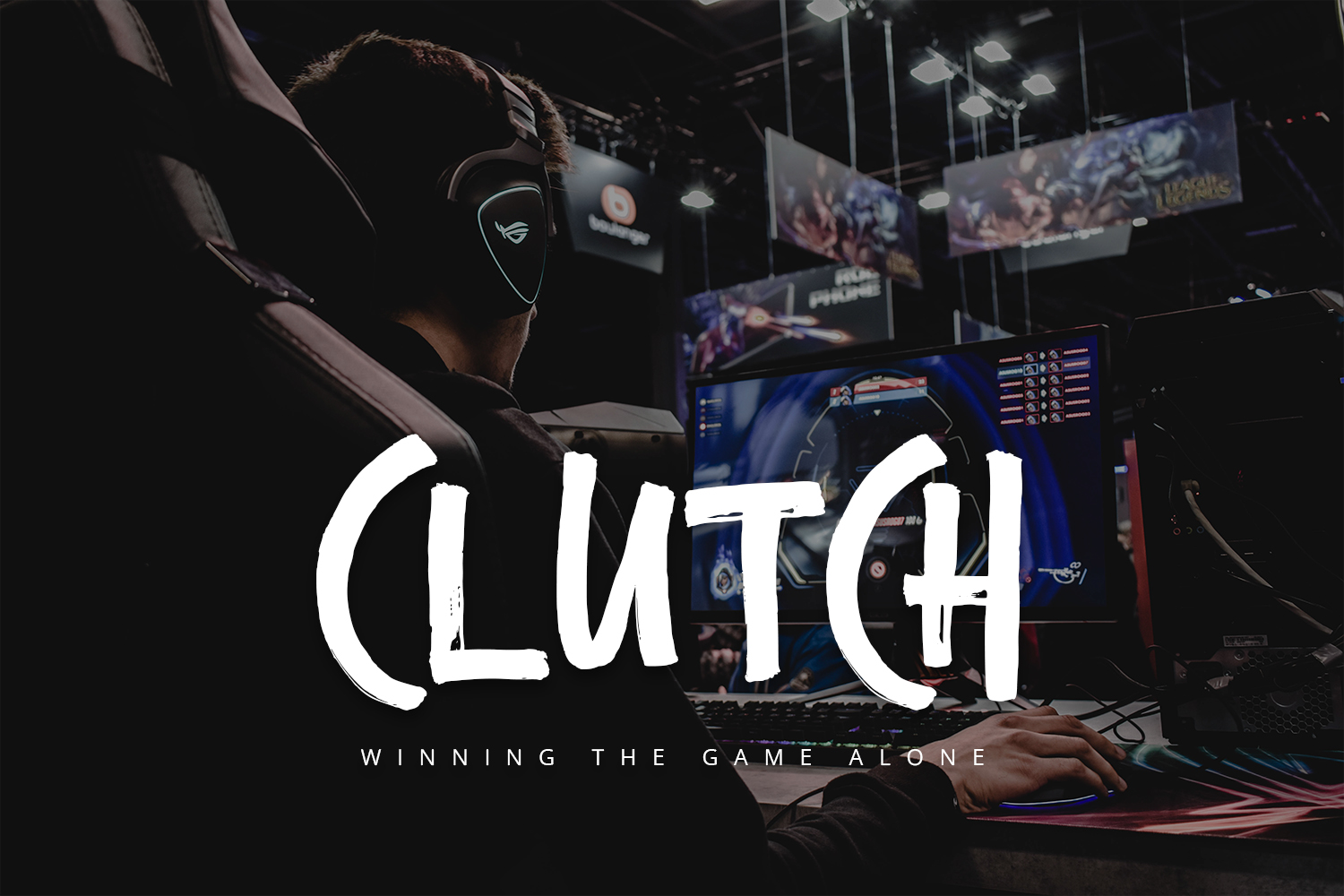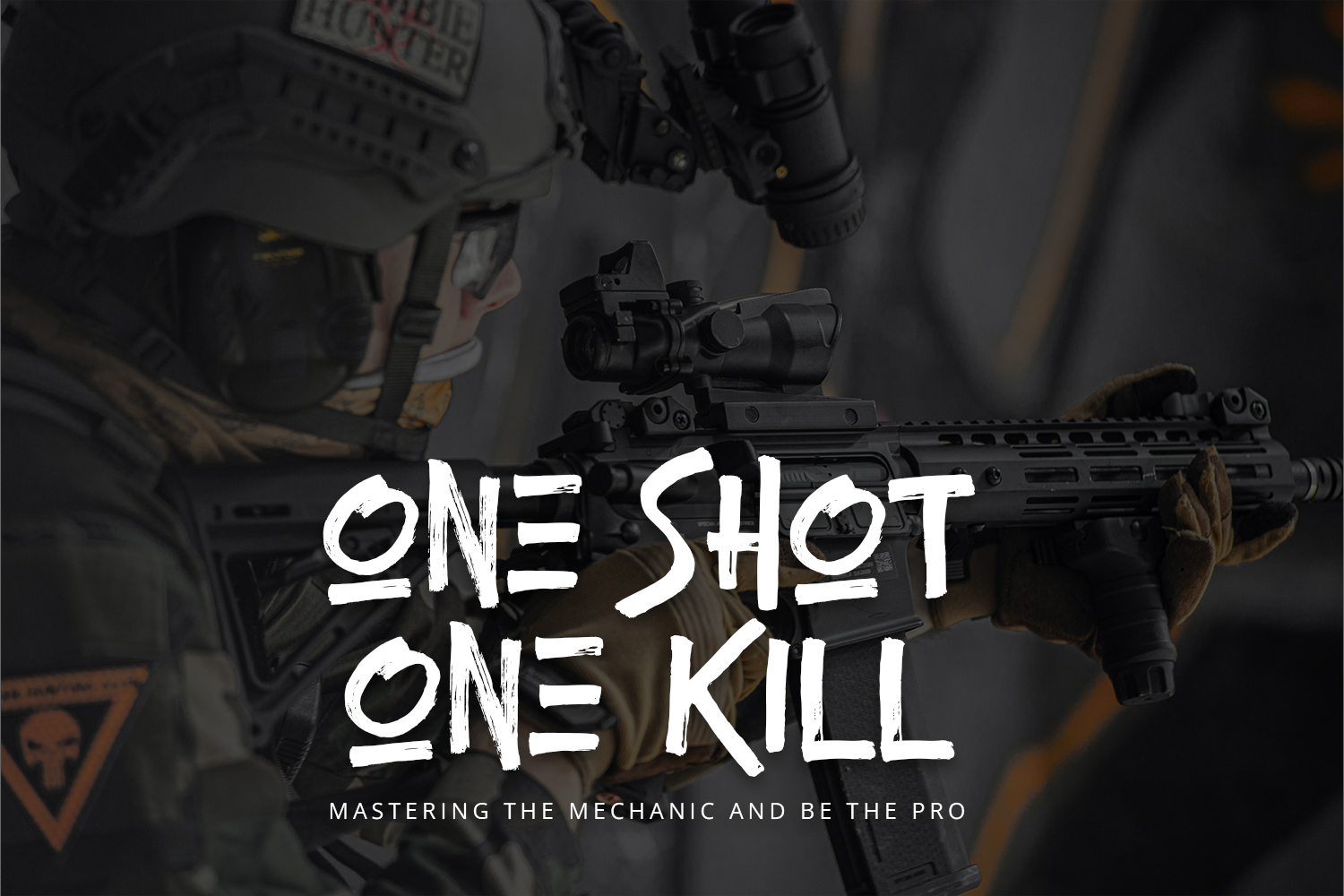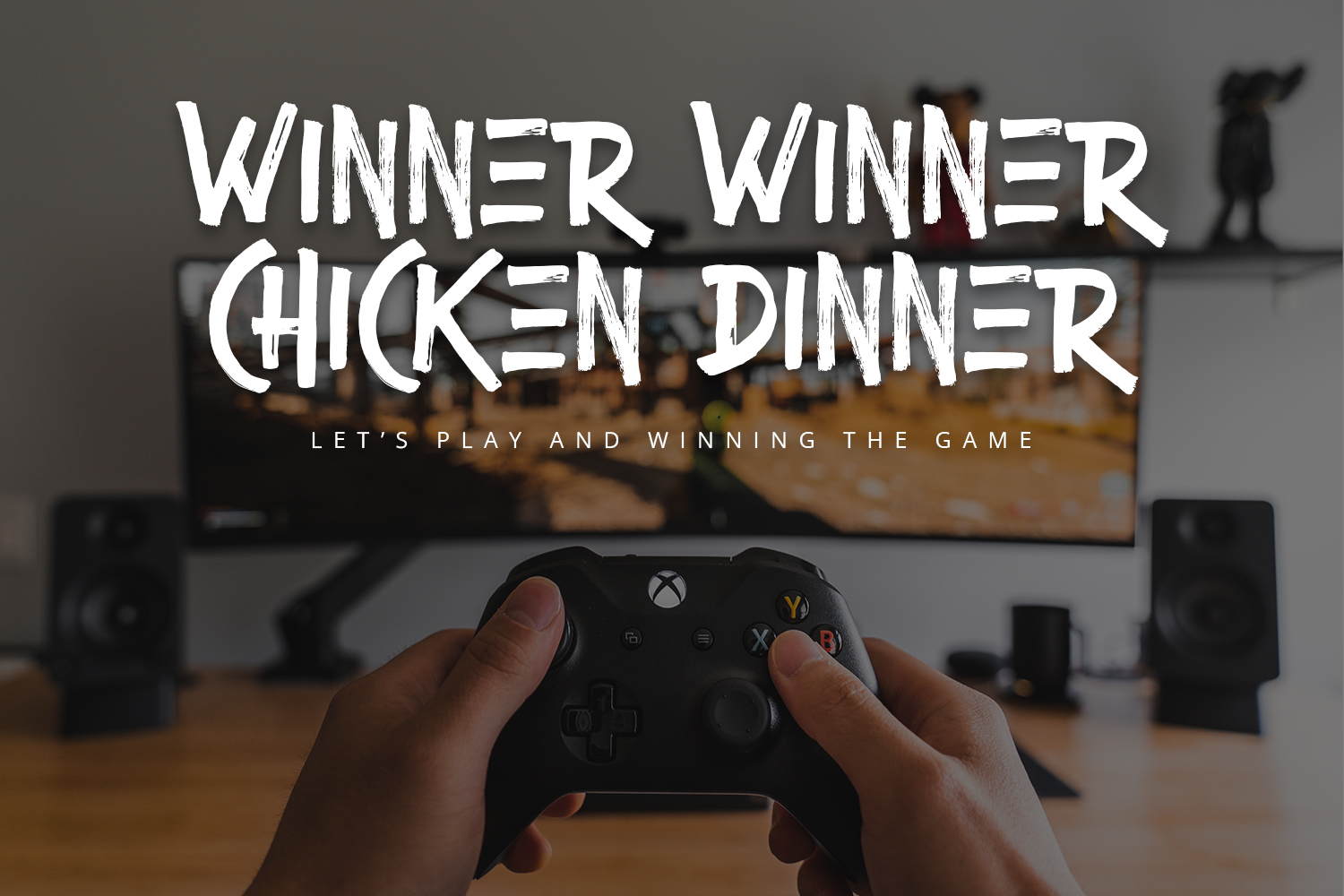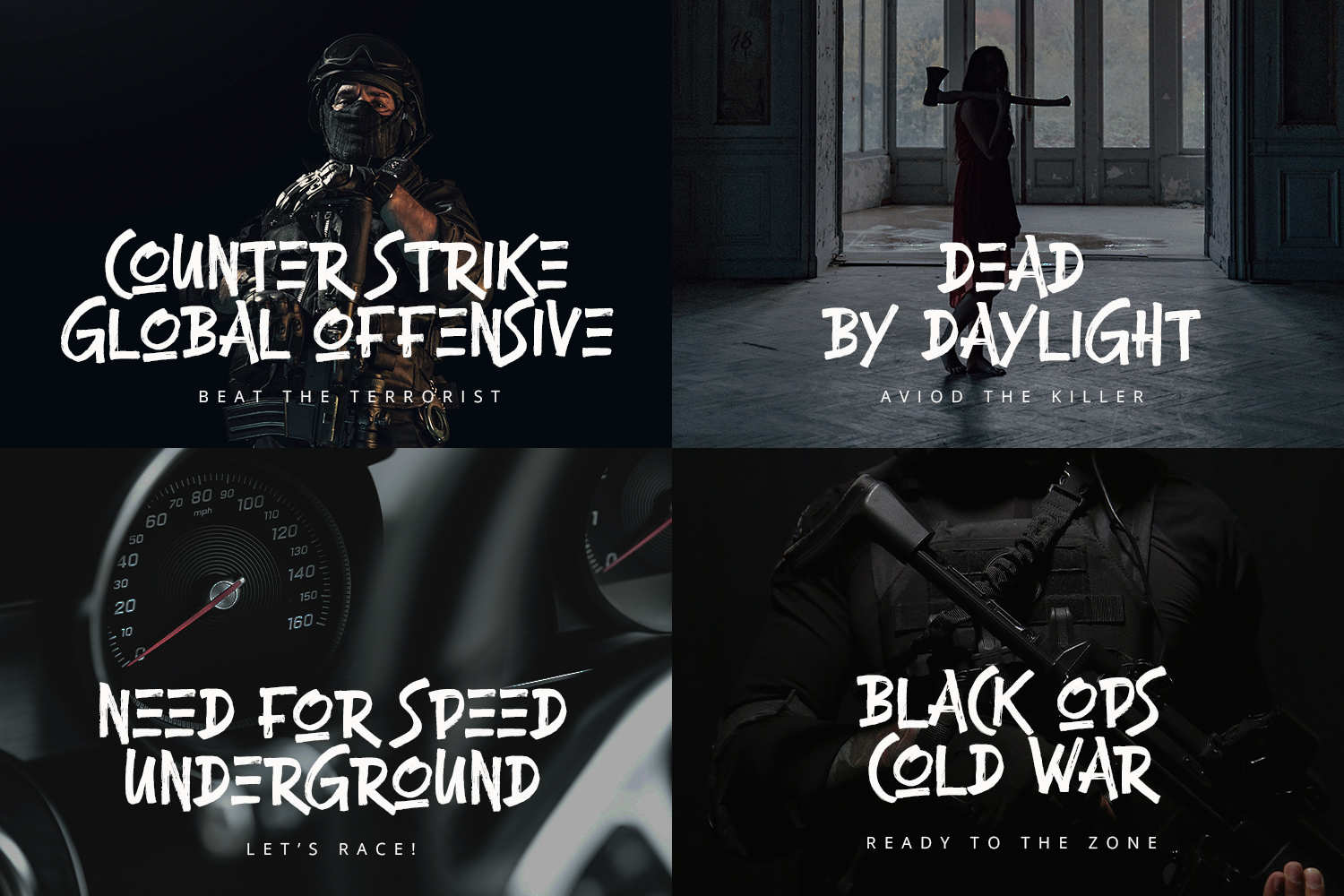
Champion Font
Champion Brush Font is a brush display font with authentic and casual feels. It will be perfectly used for Branding, Logo Design, Lettering, Logotype, Clothing, Poster, magazine, packaging, posters, shopping bags, t-shirts, book covers, photography, special events and other design project.